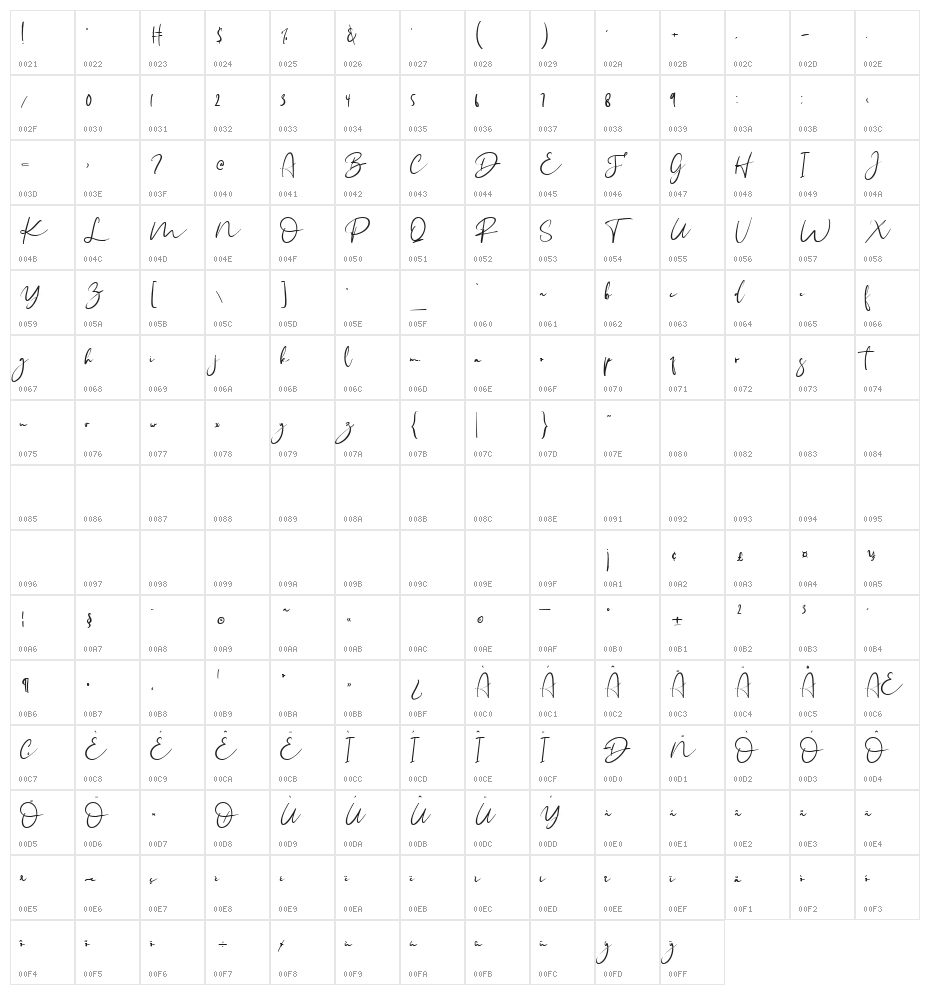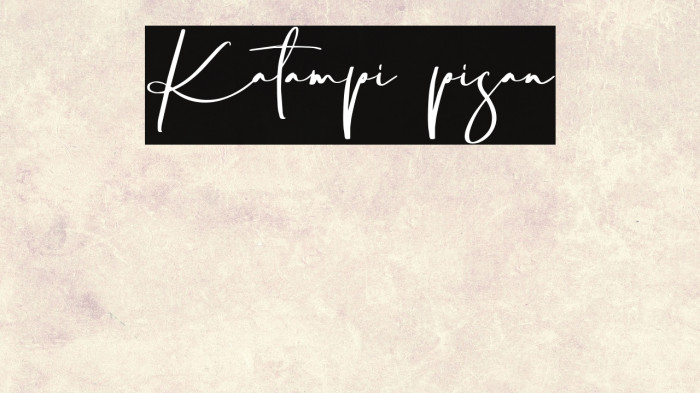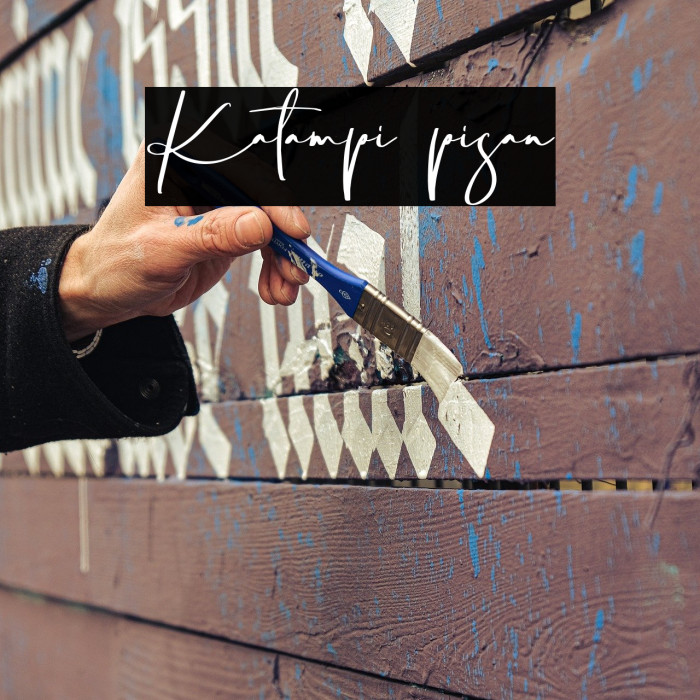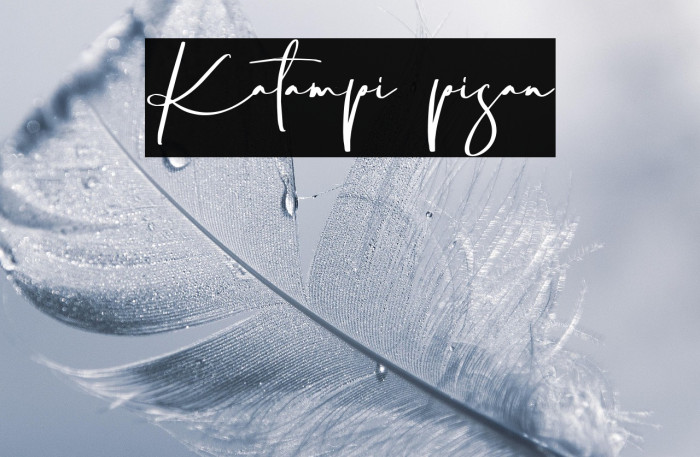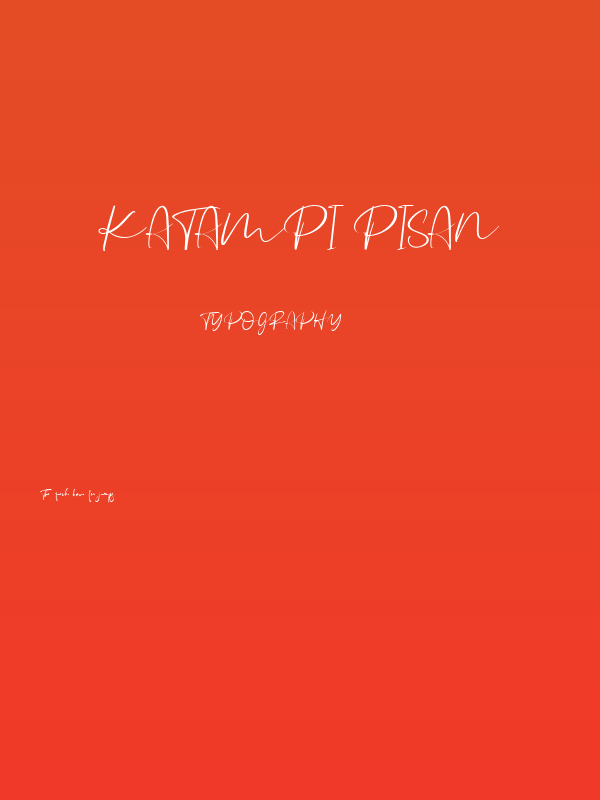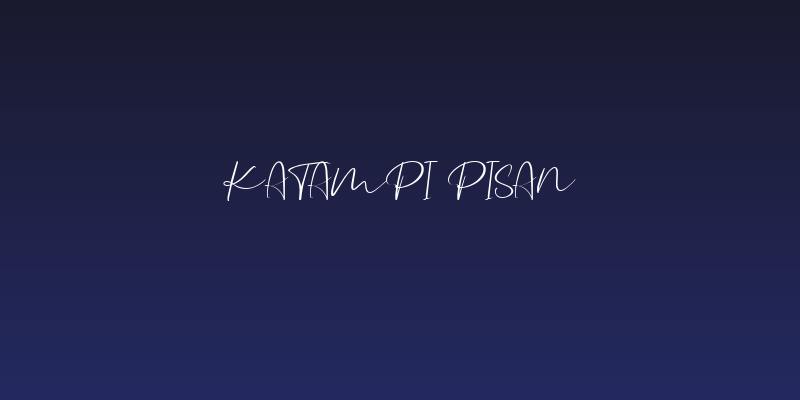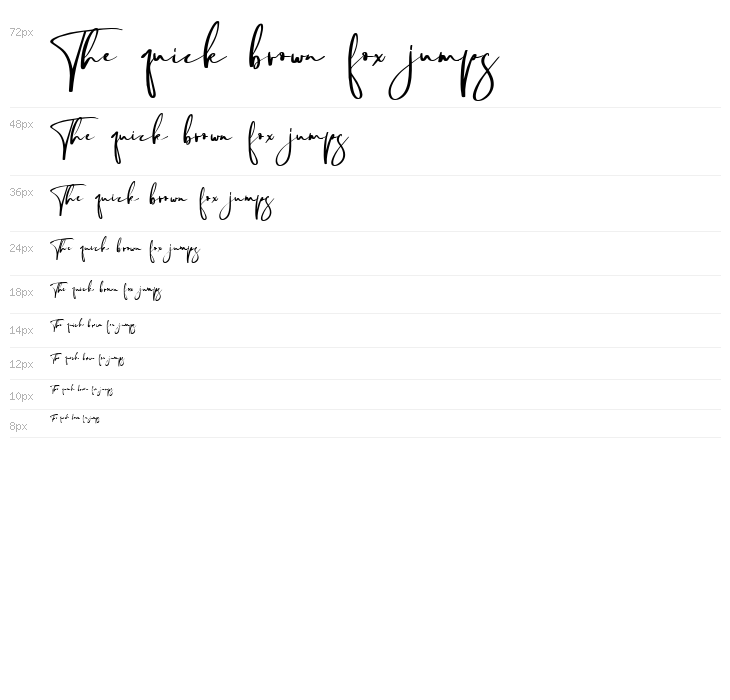
Katampi pisan Font
Katampi pisan Description
This font exhibits a lively and flowing handwritten style, characterized by its elegant and cursive letterforms. The uppercase letters are gracefully elongated, with smooth curves and a consistent slant that adds a sense of motion and fluidity. The lowercase letters maintain a similar aesthetic, with some characters featuring unique loops and flourishes that enhance the overall decorative appeal. The numerals are consistent with the script style, offering a cohesive look across all characters. Special characters are thoughtfully integrated, maintaining the font's artistic and whimsical nature. This font is ideal for projects that require a personal touch or a sense of elegance and creativity.
| Proposed Projects | Ideal for wedding invitations, greeting cards, personal branding, and artistic projects. |